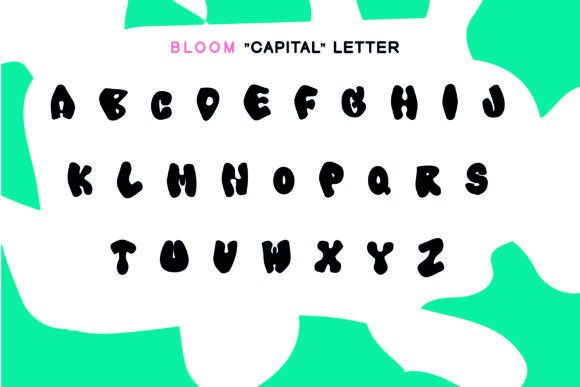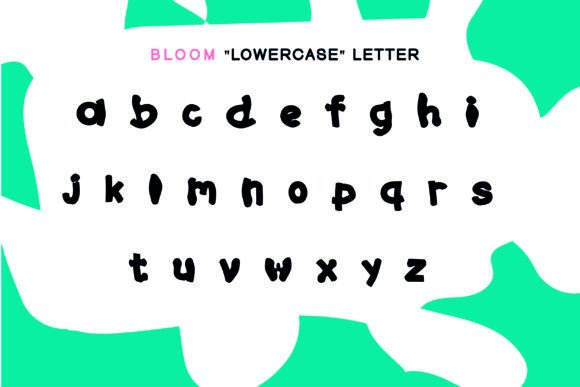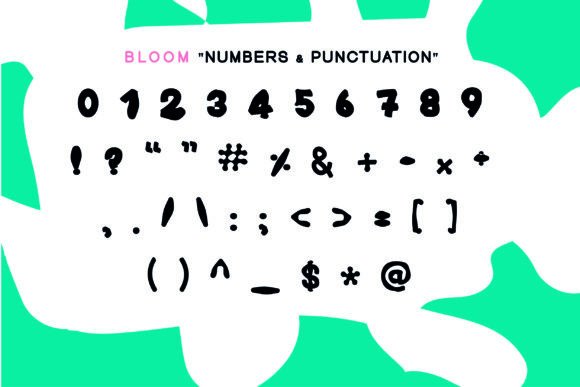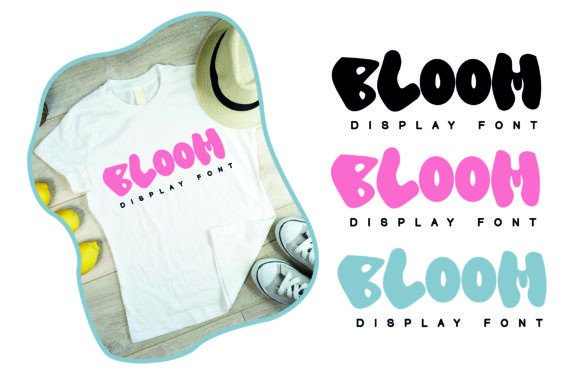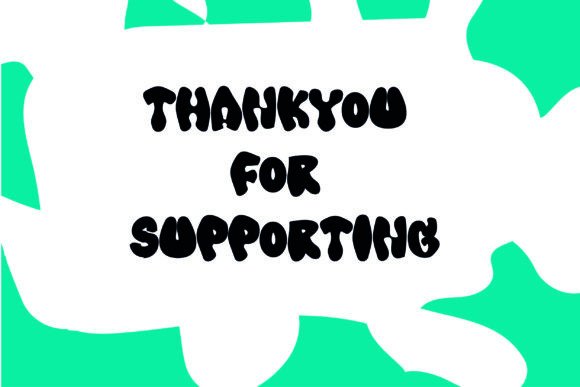
Bloom Font: Adding a Touch of Whimsy to Your Designs
Bloom Font is a delightful and playful display font that can instantly elevate your creative projects with a dash of fun and personality. This charming font is perfect for designers, crafters, and anyone looking to add a touch of whimsy to their work. In this article, we’ll dive into the world of Bloom Font, exploring its features, uses, and benefits, as well as provide tips on how to make the most of this fantastic font.
What is Bloom Font?
Bloom Font is a display font designed to bring a sense of playfulness and joy to your designs. Its unique and quirky style makes it perfect for a wide range of creative projects, from greeting cards and invitations to posters, flyers, and social media graphics. With its bold and eye-catching appearance, Bloom Font is sure to grab attention and leave a lasting impression.
Key Features of Bloom Font
- Playful and Whimsical: Bloom Font boasts a fun and carefree design that’s perfect for adding a touch of personality to your projects.
- Display Font: This font is specifically designed for display purposes, making it ideal for headlines, titles, and short phrases.
- Easy to Read: Despite its playful nature, Bloom Font remains easy to read, even at smaller sizes.
- Versatile: Bloom Font can be used for a wide range of projects, from digital designs to print materials.
Uses for Bloom Font
Bloom Font is an incredibly versatile font that can be used in various creative projects, including:
- Greeting Cards and Invitations: Add a touch of whimsy to your greeting cards and invitations with Bloom Font.
- Posters and Flyers: Use Bloom Font to create eye-catching posters and flyers that grab attention.
- Social Media Graphics: Add a dash of personality to your social media graphics with Bloom Font.
- Crafting Projects: Bloom Font is perfect for crafters, adding a playful touch to scrapbooking, journaling, and other paper crafting projects.
Tips for Using Bloom Font
To get the most out of Bloom Font, follow these tips:
- Use it Sparingly: Bloom Font is a bold and attention-grabbing font, so use it sparingly to avoid overwhelming your design.
- Pair it with Other Fonts: Combine Bloom Font with other fonts to create visual interest and add depth to your design.
- Experiment with Colors: Bloom Font looks great in a variety of colors, so don’t be afraid to experiment and find the perfect hue for your design.
- Have Fun: Most importantly, have fun with Bloom Font! Its playful nature makes it perfect for creative and experimental projects.
Benefits of Using Bloom Font
Bloom Font offers several benefits for designers and crafters, including:
- Unique and Eye-Catching: Bloom Font adds a touch of personality and whimsy to your designs, making them stand out from the crowd.
- Versatile: Bloom Font can be used for a wide range of projects, from digital designs to print materials.
- Fun and Playful: Bloom Font is perfect for adding a dash of fun and playfulness to your designs.
Bloom Font is a fantastic display font that’s perfect for adding a touch of whimsy to your creative projects. Its playful and eye-catching design makes it ideal for a wide range of applications, from greeting cards and invitations to posters, flyers, and social media graphics. With its ease of use, versatility, and fun personality, Bloom Font is sure to become a favorite among designers and crafters. So why not give it a try and see how it can bring your designs to life?